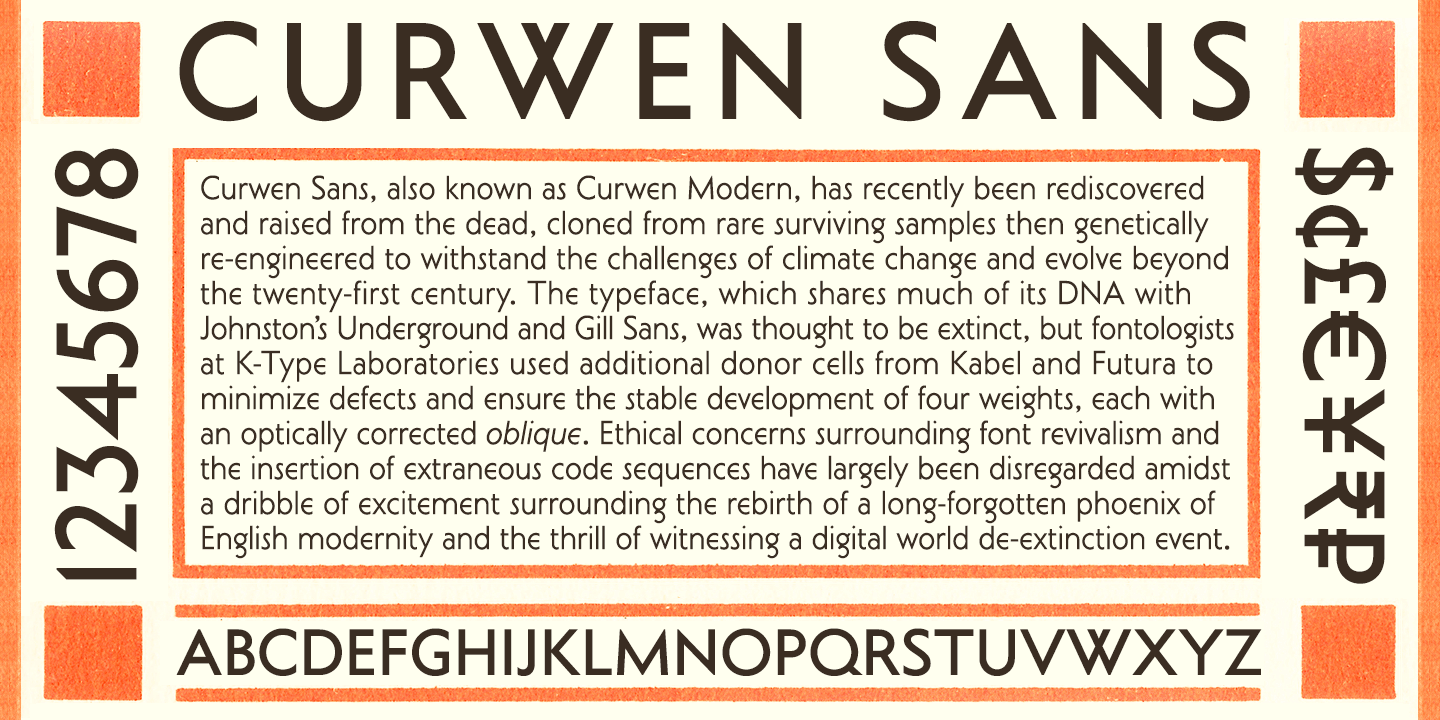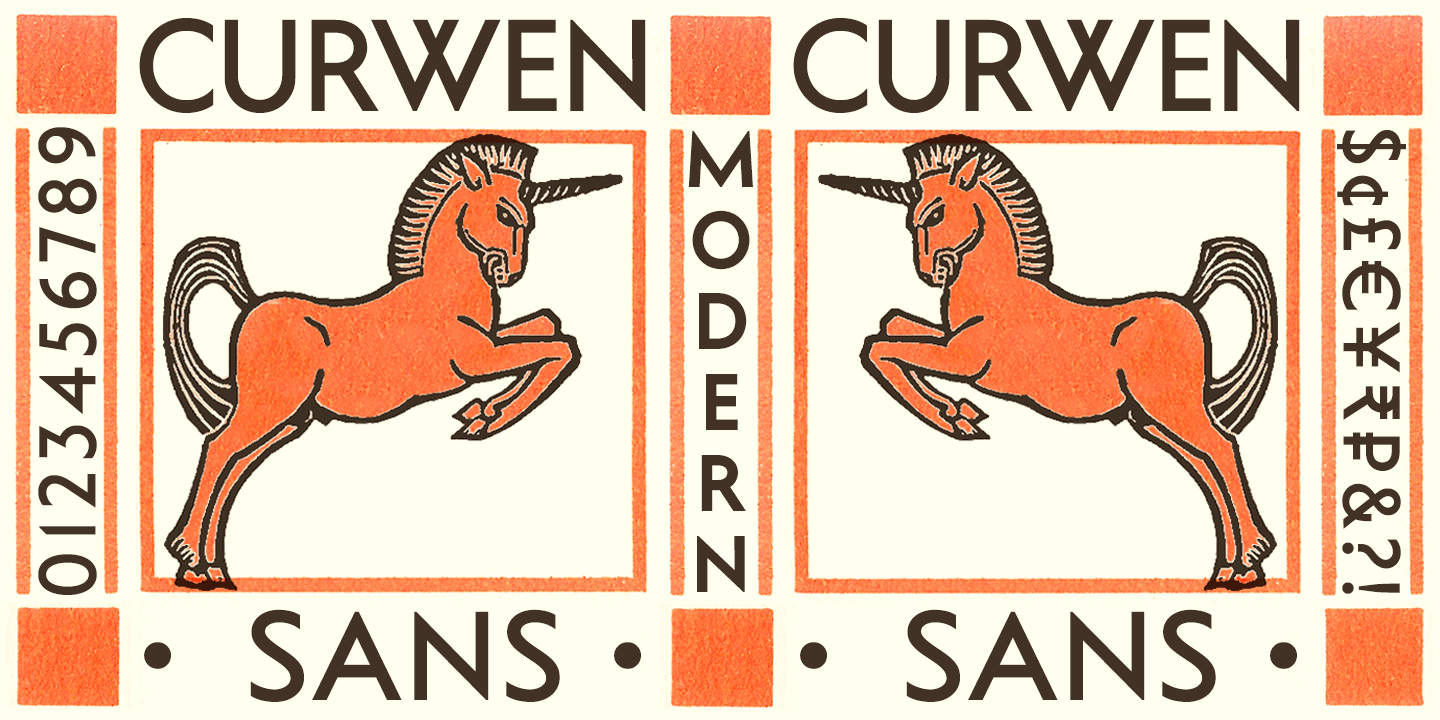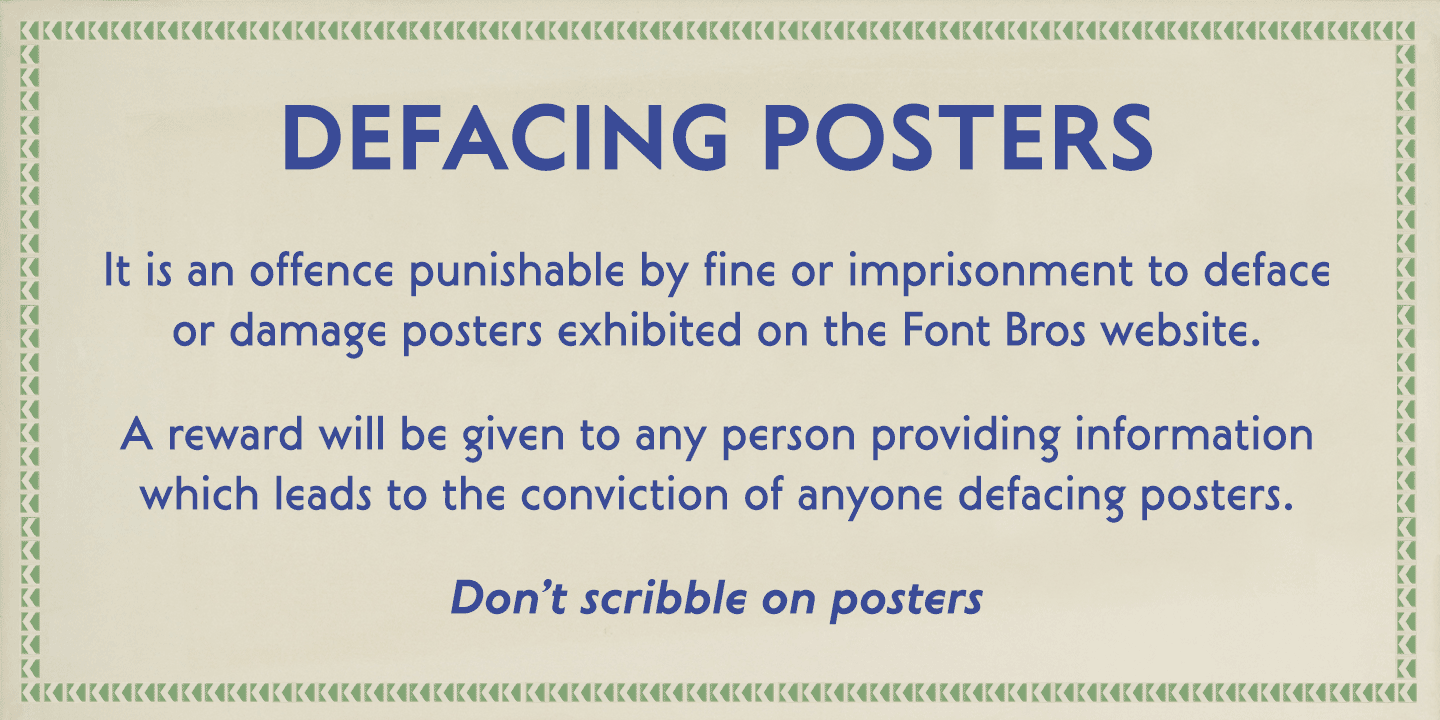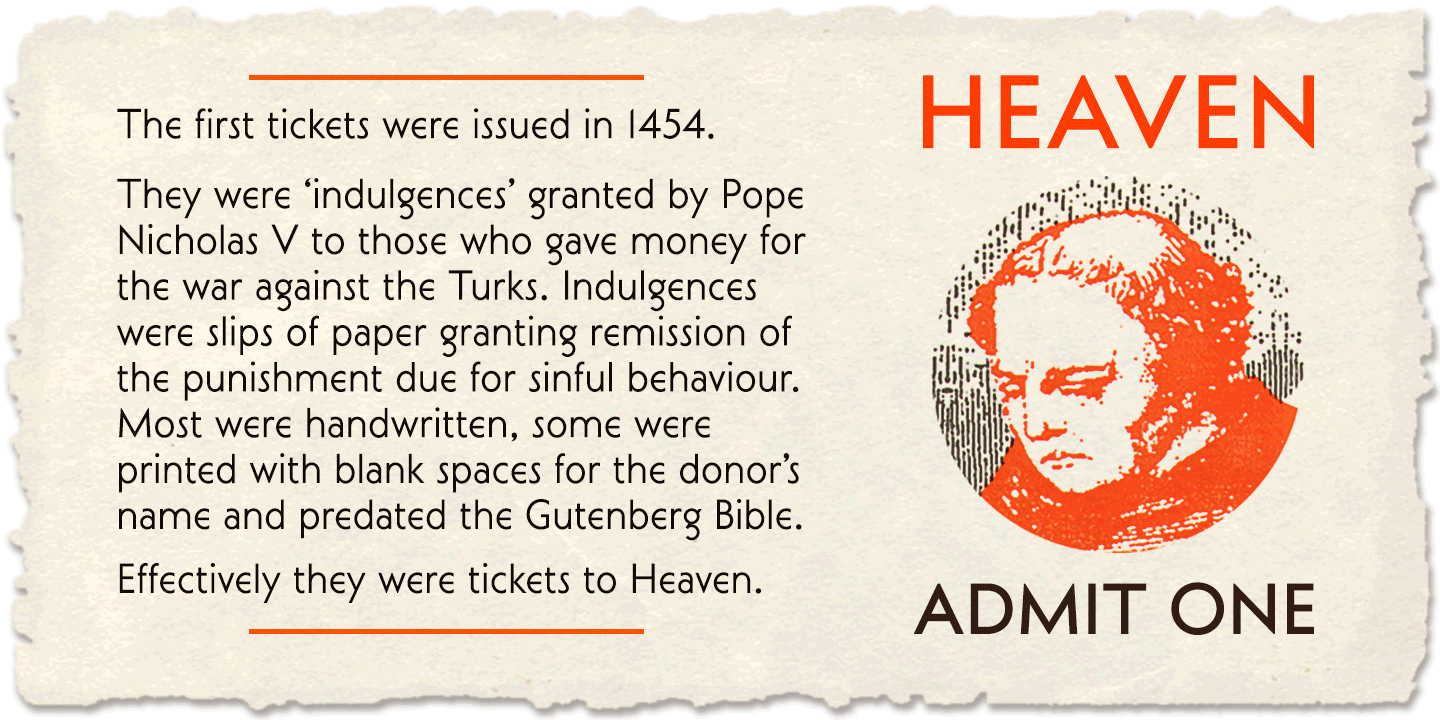
About Curwen Sans
Curwen Sans is a monoline sans-serif dating from the early twentieth century. Though contemporary with Johnston\’s Underground and Gill Sans, and emerging from the same artistic milieu, Curwen Sans was created solely for in-house use at the Curwen Press…